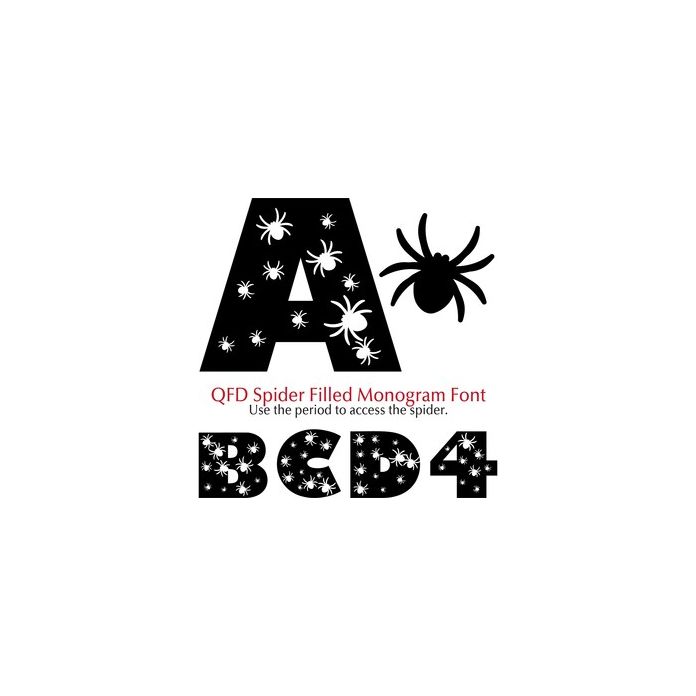
Use the period to access the spider. See the other Quietfire Halloween-themed filled Monogram Fonts. Perfect for gift tags, cards, pillows, invitations, wall art, t-shirts, mugs and anything else you can think of. See our detailed monograms tutorial by clicking the Instructions button. If you have any questions, please feel free to contact me!